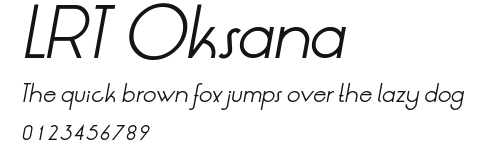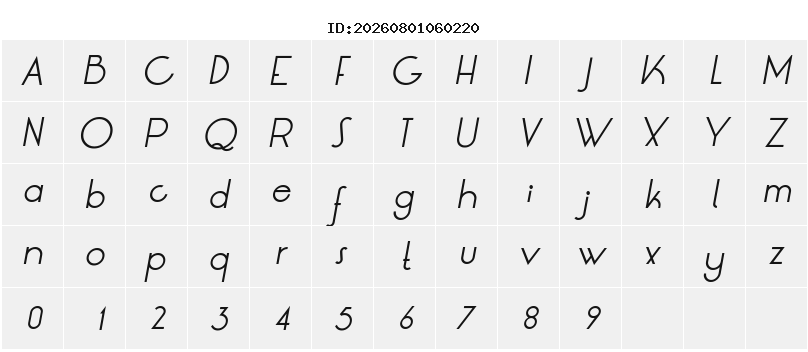
LRT Oksana Preview
• Font Name: LRT Oksana
• Designer: Lauren Thompson
• Description: Original geometric design by Lauren Thompson, first created in 2008. The "deco" midlines and unconventional dotted letter positions as well as the almost vertical slant of the 's' give this font what has been described as a "retro" theme and add to the uniqueness of the typeface. Version 6.5 - Updated select Cyrillic characters
LRT Oksana.ttf is a modern, elegant sans-serif font designed for ultimate readability and visual harmony. Perfect for branding, headlines, web design, and print materials.